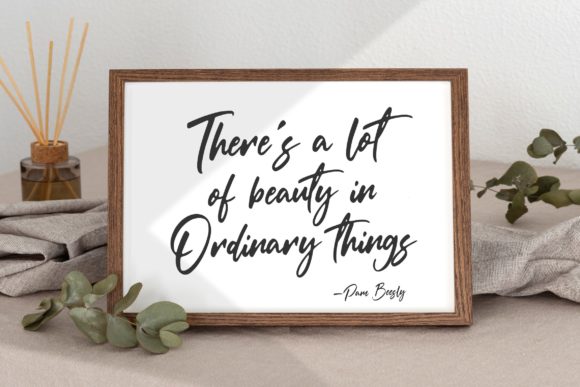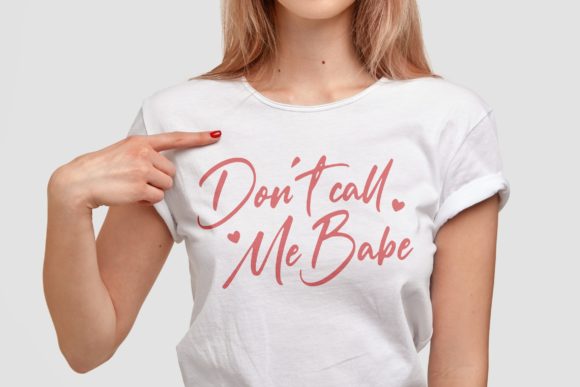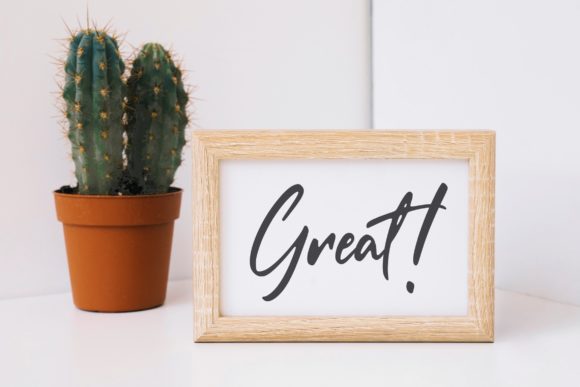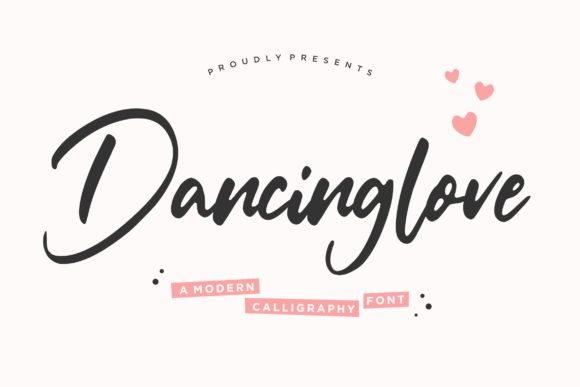
Introduction to Dancinglove Font
Dancinglove is a unique and elegant handwritten font.
It looks beautiful on a variety of designs requiring a personalized style, such as wedding invitations, thank you cards, weddings, greeting cards, logos and so on .
Key Features of Dancinglove Font
Why Choose Dancinglove Font?
Dancinglove Font offers exceptional quality and versatility, making it a valuable addition to your design toolkit. Whether you’re creating for personal projects or commercial use, Dancinglove Font delivers professional results.